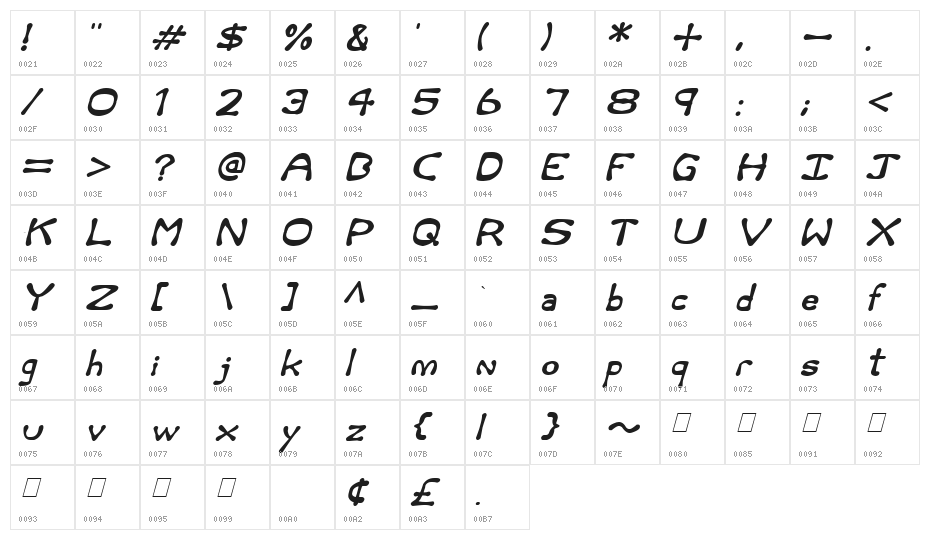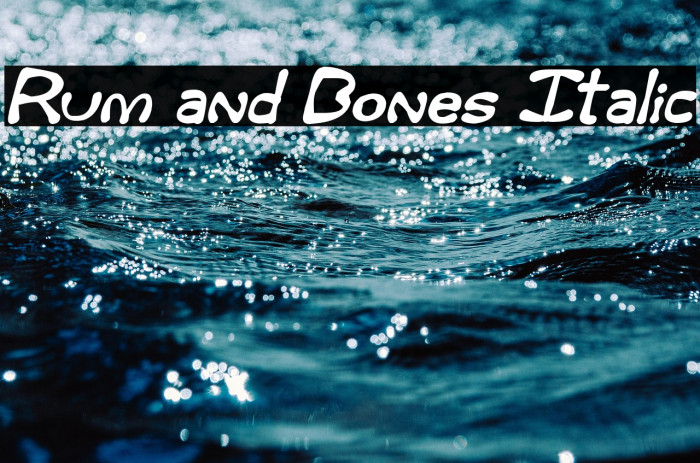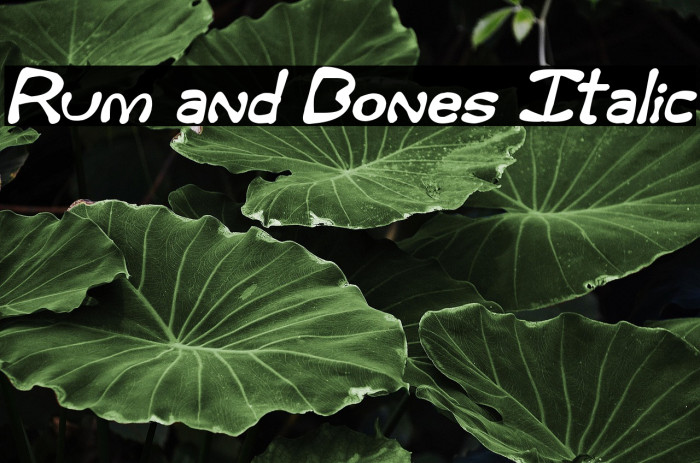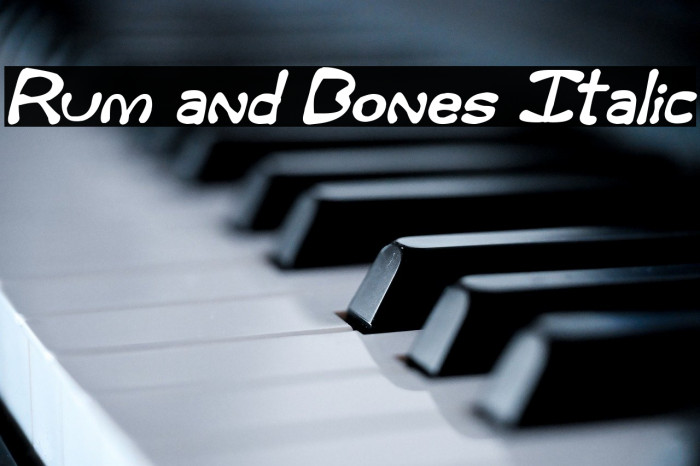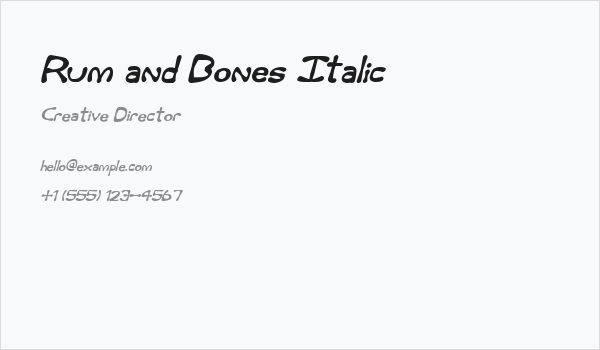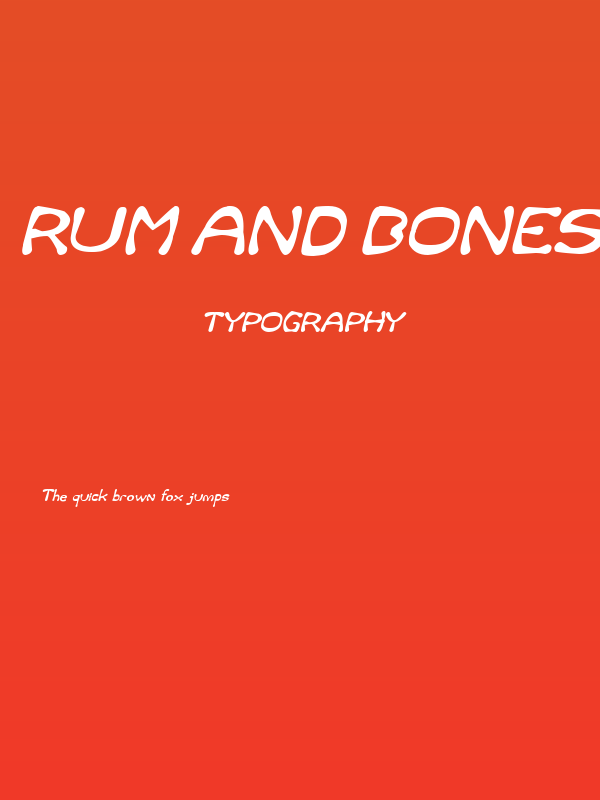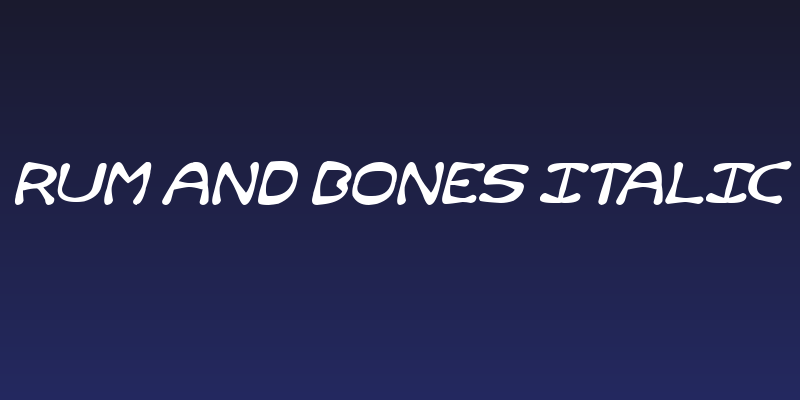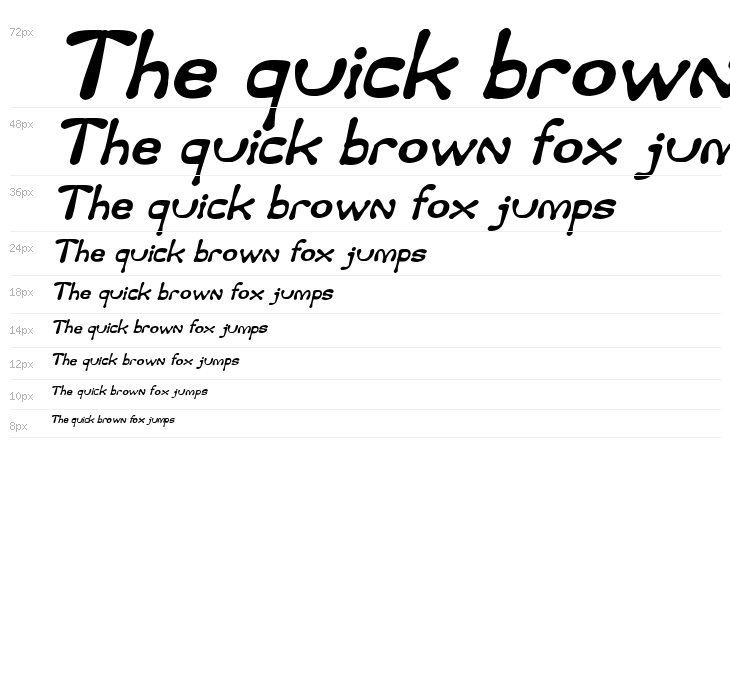
Rum and Bones Italic Font
Rum and Bones Italic Description
This font features a playful and dynamic style with a handwritten appearance. The letters are slightly slanted, giving it an italicized look that adds to its casual and informal vibe. The strokes are bold and rounded, providing a sense of warmth and approachability. The characters are well-spaced, ensuring readability while maintaining a lively flow. This font is versatile, suitable for projects that require a personal touch or a fun, energetic feel.
| Proposed Projects | Ideal for greeting cards, playful branding, children's books, and creative posters. |